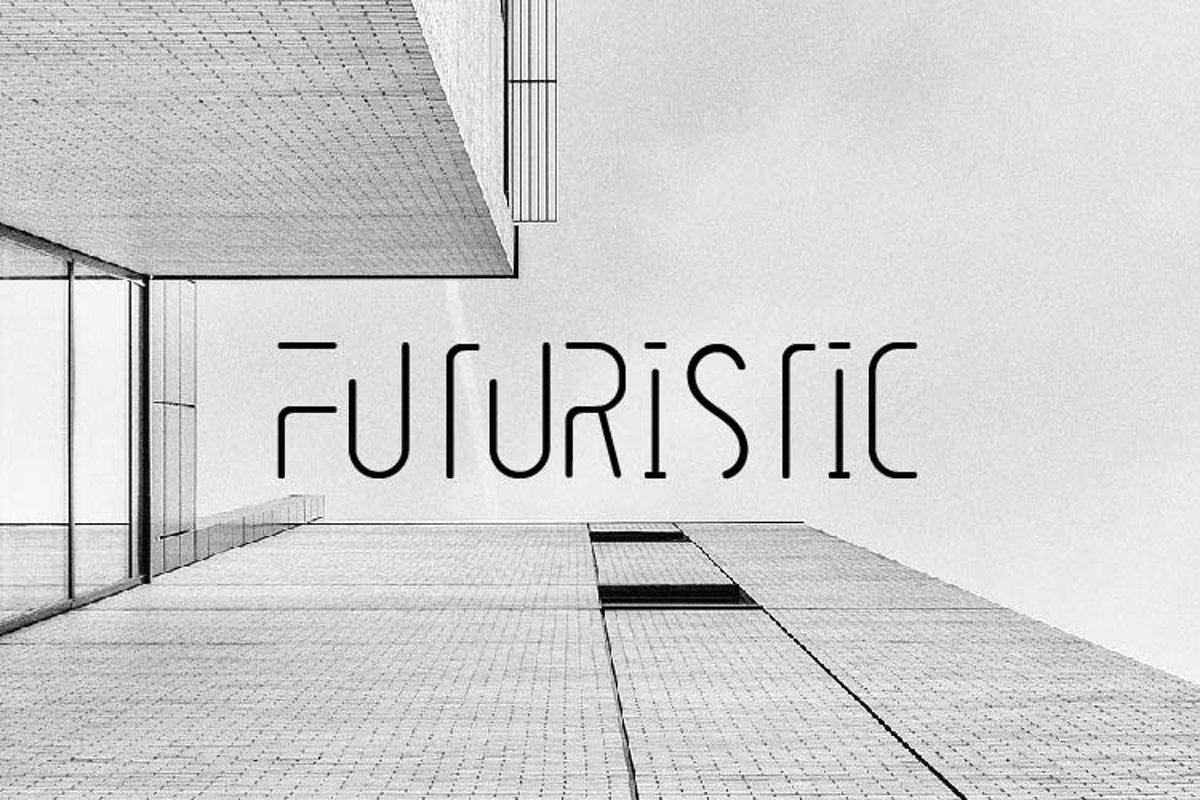
Futuristic
Futuristic is a cute and modern display font with an incredibly futuristic feel. Whether you’re looking for fonts for Instagram or calligraphy scripts for DIY projects, this font will turn any creative idea into a true piece of art!